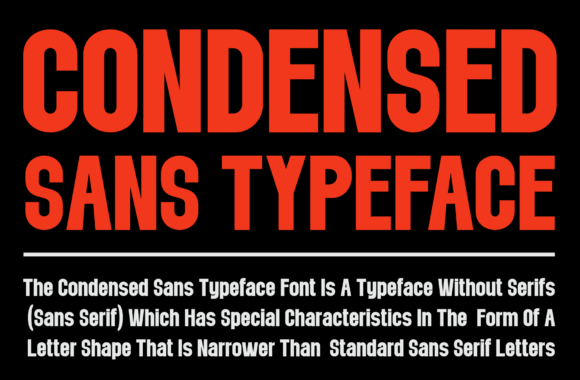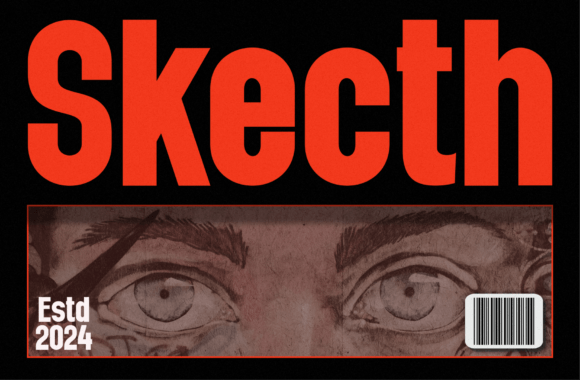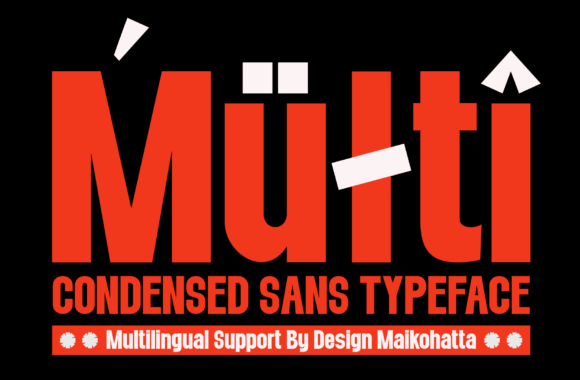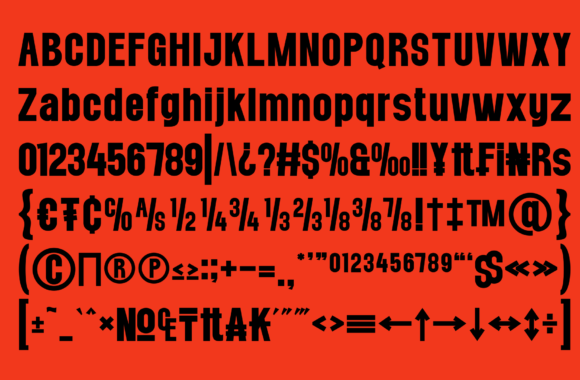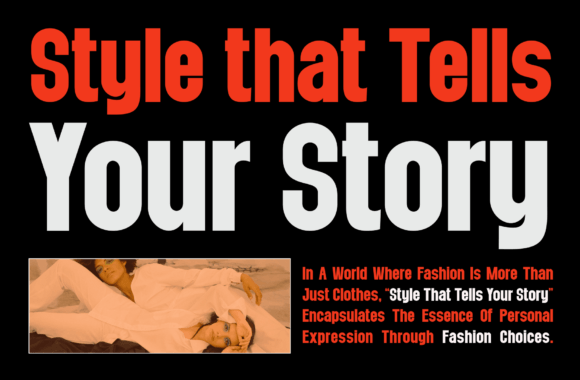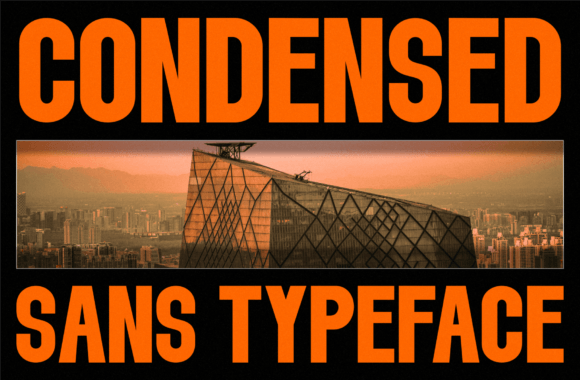
Introduction to Skecther Font
Have you ever found yourself stuck on a creative project, struggling to convey the perfect message through the perfect font? I know I have. It was during one such moment, when I was working on a design project, that I stumbled upon the Skecther Font – a game-changer for designers like myself.
Skecther Font is a sans serif font that stands out from the crowd with its narrower letterforms, making it a valuable resource for designers who need to convey a sense of elegance and sophistication in their work. Whether you’re working on a print material, a digital graphic, or any other design project, this font is sure to elevate your design to the next level.
Key Features of Skecther Font
- High-quality design resource ideal for creative projects, offering a professional and unique look.
- Unique characteristics include its bold and modern design, making it perfect for branding and identity projects.
Honest Review: Skecther Font
I recently stumbled upon the Skecther Font while searching for a design resource to enhance a creative project. I must say, it’s a gem! The font is a high-quality addition to any design collection, and I appreciate that it’s available for free download.
One of the things that works well about the Skecther Font is its versatility. It can be used for a wide range of creative projects, from logos and branding to digital art and print materials. The font’s modern and sleek design makes it perfect for creating a professional and polished look.
Here are some key features that I like about the Skecther Font:
One limitation of the Skecther Font is that it may not be suitable for projects that require a more traditional or classic look. However, for most modern and creative projects, it’s a great choice.
Overall, I’m really impressed with the Skecther Font. It’s a high-quality design resource that’s perfect for creative projects. I highly recommend it to anyone looking for a free and versatile font that can help elevate their design work.
Tips for Getting the Most Out of Skecther Font
When using Skecther Font, consider the following tips to get the most out of it: use it in conjunction with other design resources, experiment with different font sizes and colors, and don’t be afraid to try out new and creative project ideas.
Skecther Font is commonly used in a variety of creative projects, including graphic design, web design, and digital art. It’s also a popular choice for designers who need a high-quality, free download font to add a professional touch to their work.